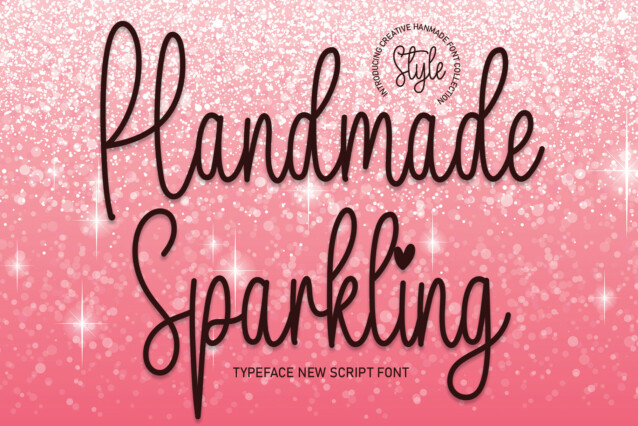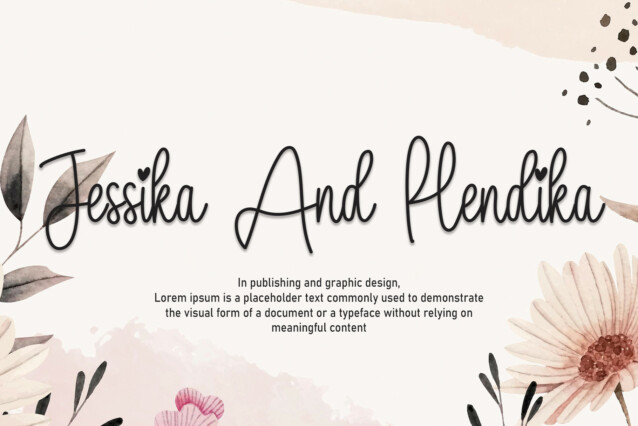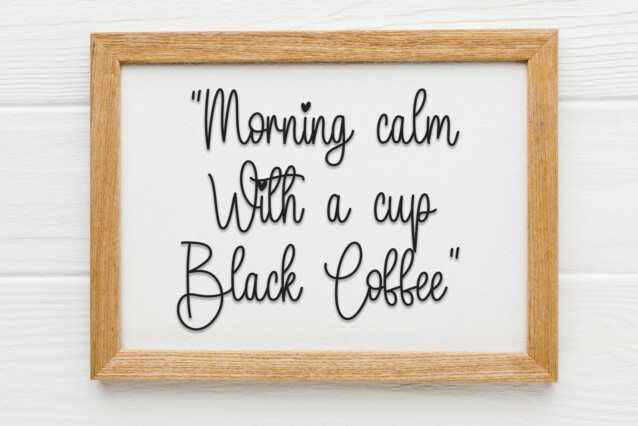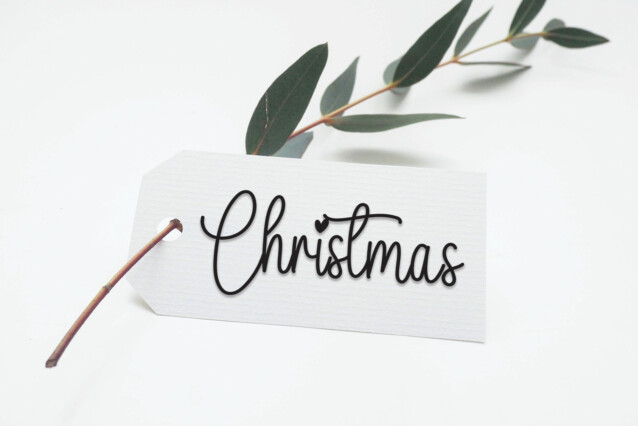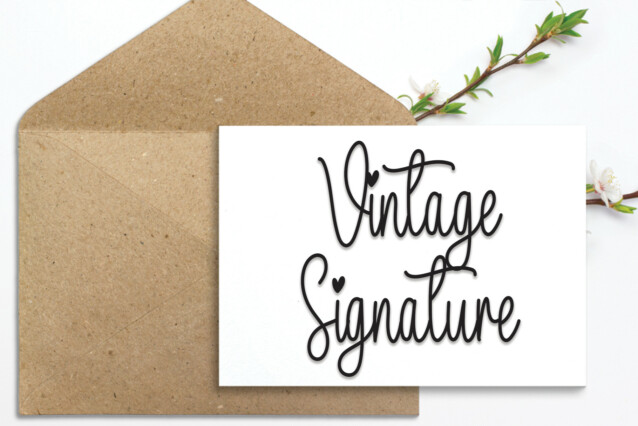
Handmade Sparkling Handwritten Font
Handmade Sparkling Handwritten Font is a delicate and elegant handwritten font. Its distinct and well-balanced letters make this font a masterpiece. Fall in love with its incredibly versatile style and use it to create spectacular designs!